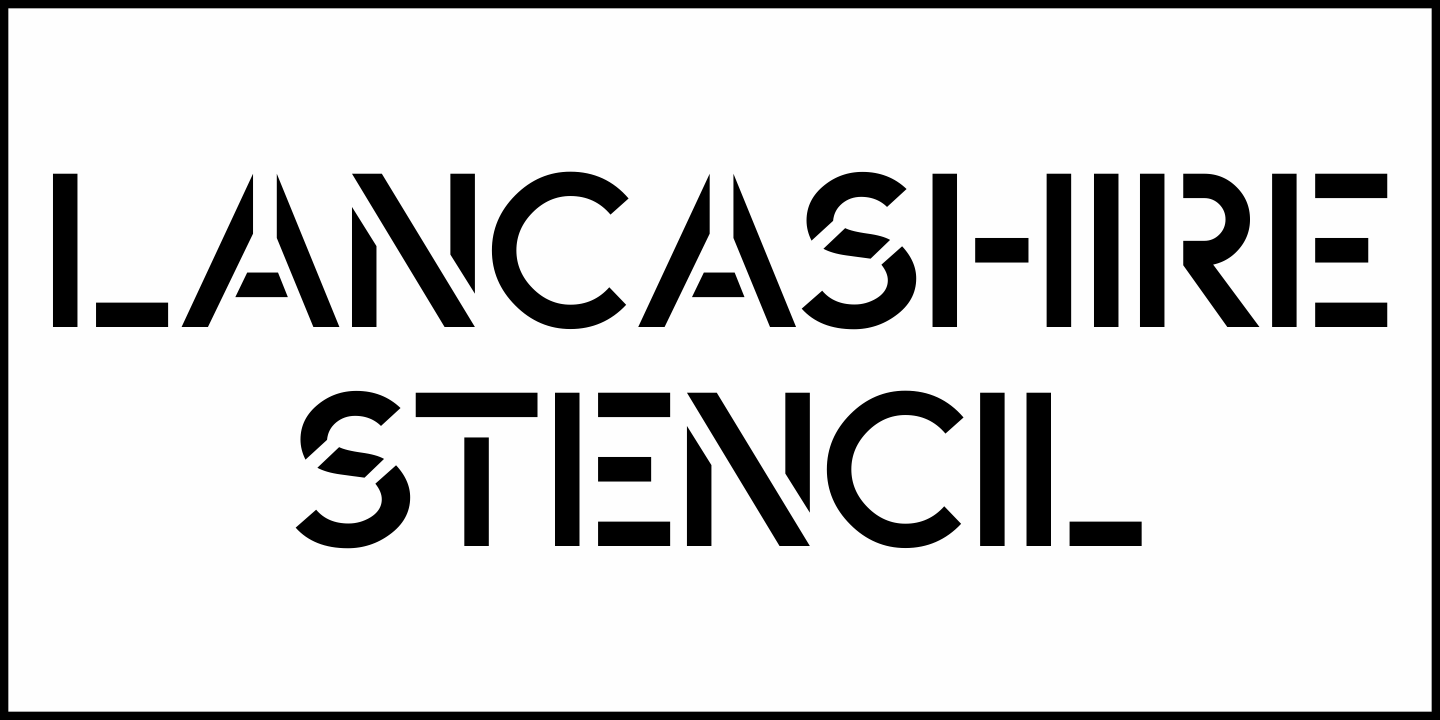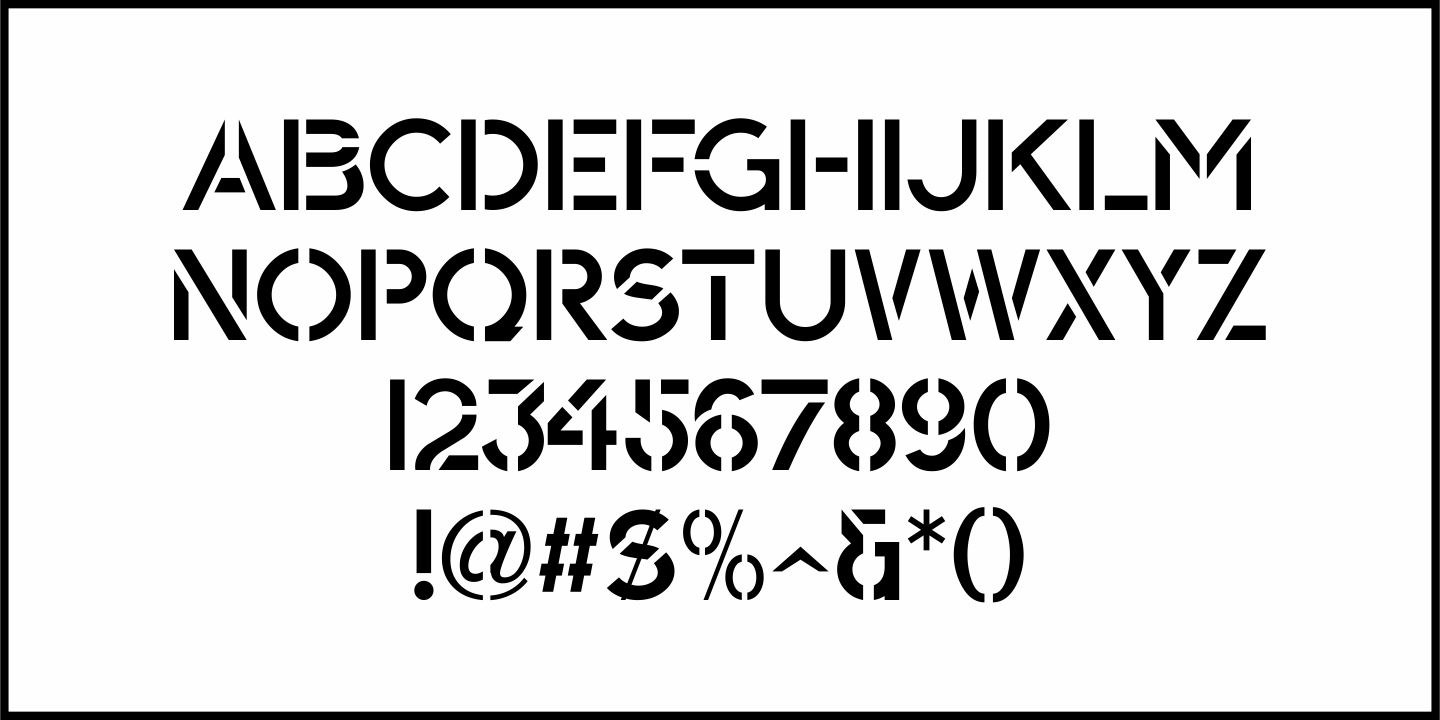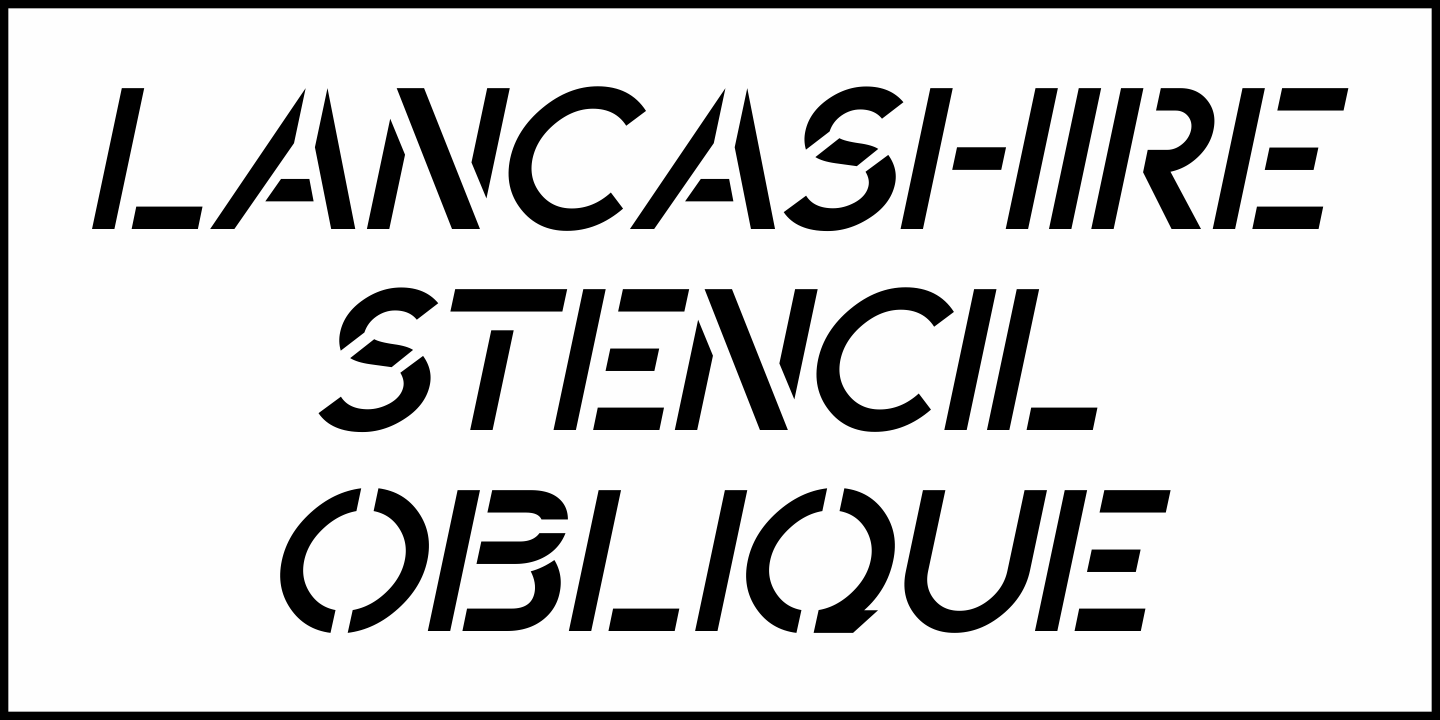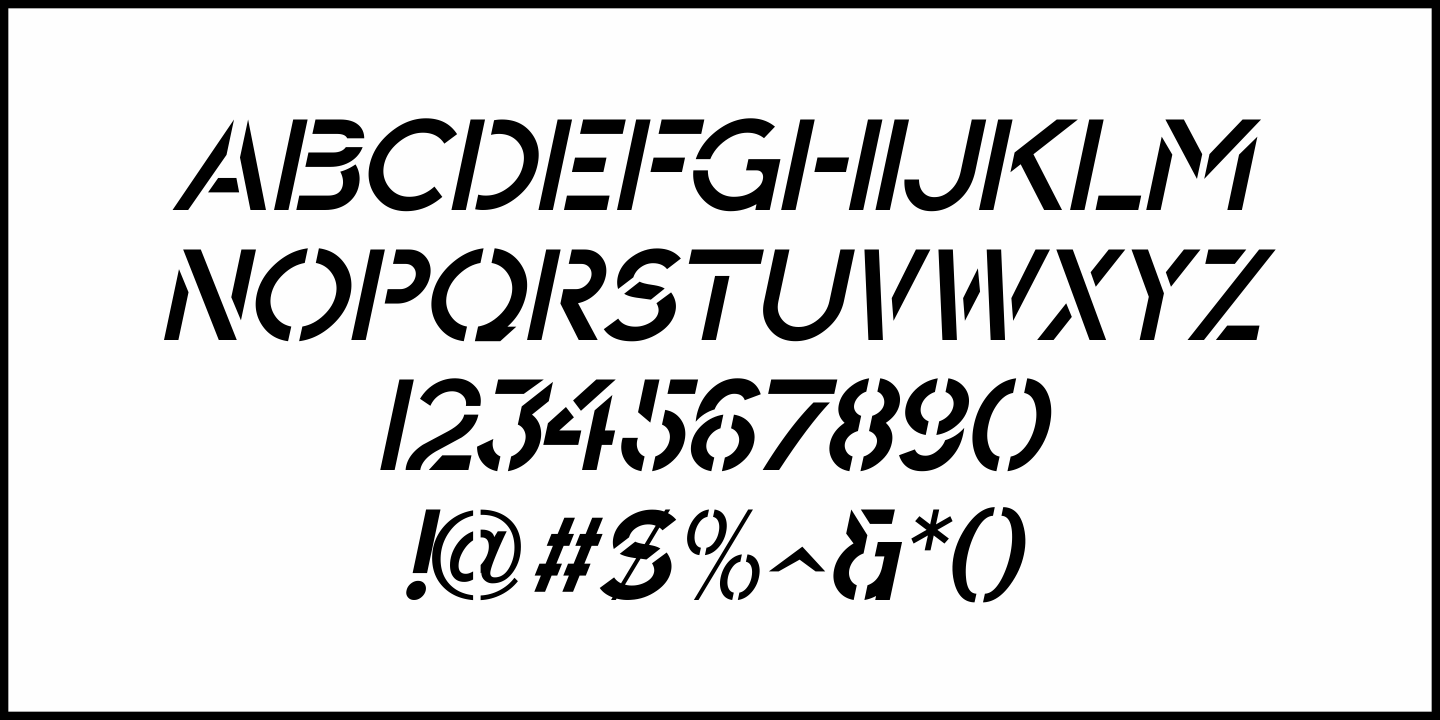
Lancashire Stencil
The Butterfly Brand [from the UK] manufactured some lettering stencils (circa the 1950s) with a distinctively British look and feel.
These inspired Lancashire Stencil JNL, which is available in both regular and oblique versions.